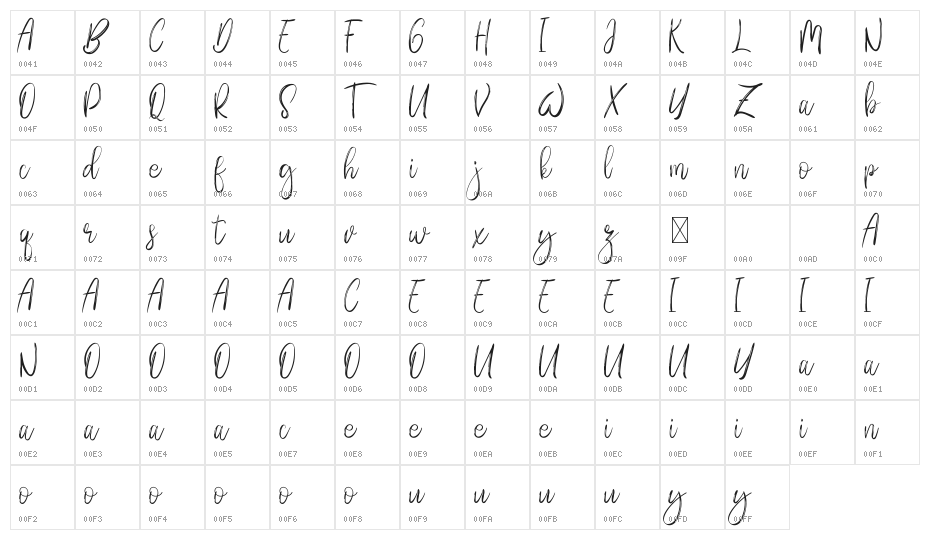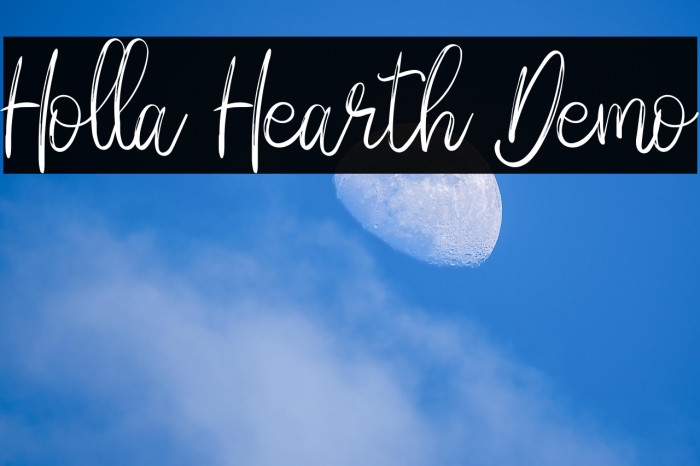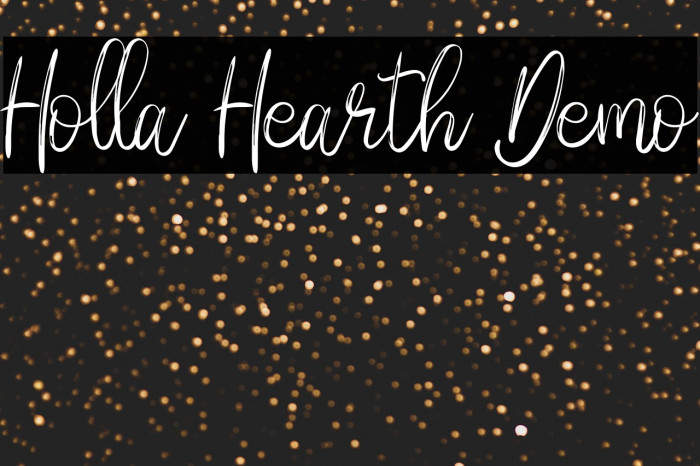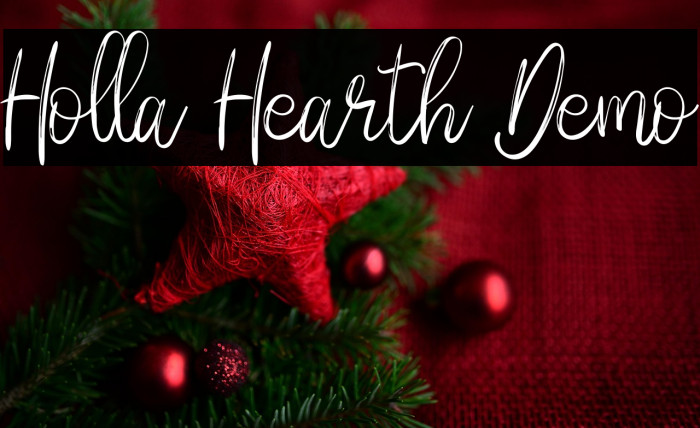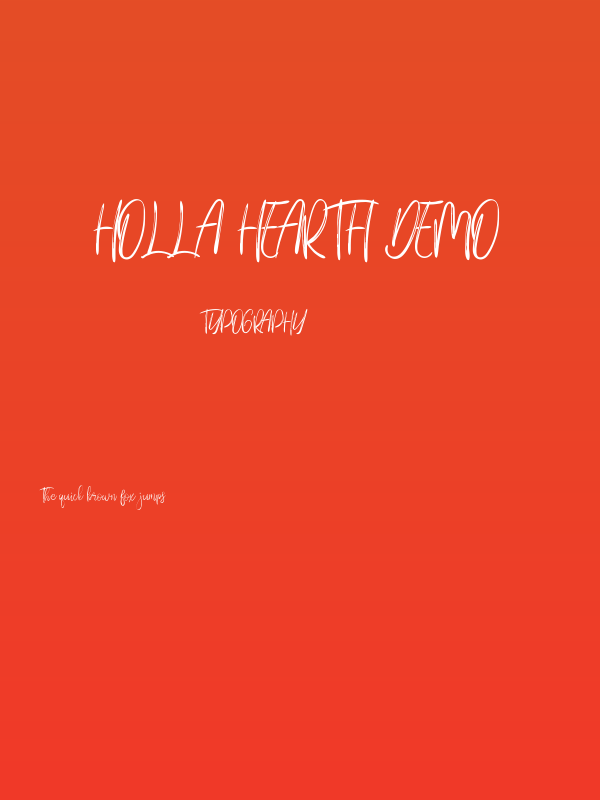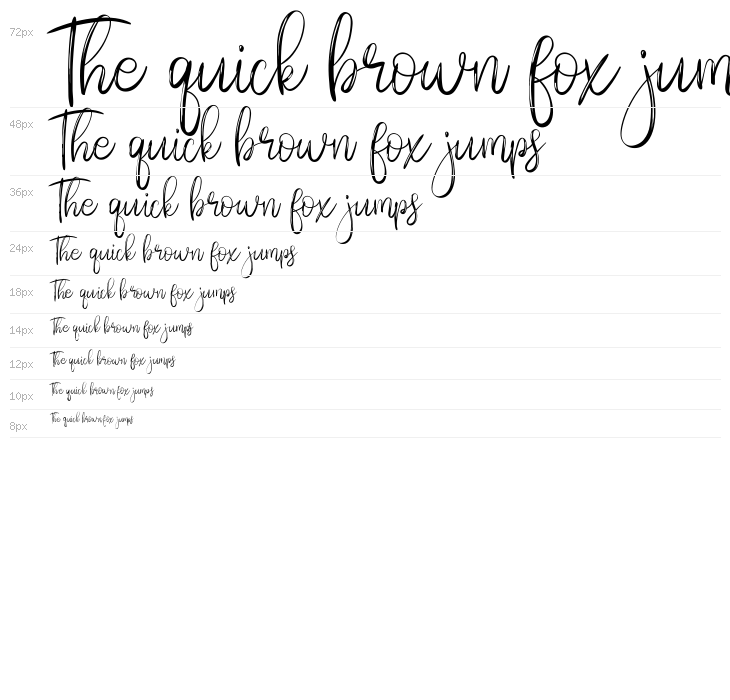
Holla Hearth Demo Font
Holla Hearth Demo Description
This font features a lively and expressive handwritten style, characterized by its fluid and dynamic strokes. The letters are connected in a cursive manner, giving it a personal and artistic touch. The uppercase and lowercase letters maintain a consistent flow, with some variations in height and slant, adding to its charm. The font's playful nature is evident in its slightly exaggerated loops and curves, making it ideal for creative and informal projects. The overall appearance is both elegant and whimsical, suitable for designs that require a personal and friendly feel.
| Proposed Projects | Ideal for wedding invitations, greeting cards, personal branding, and creative social media graphics. |